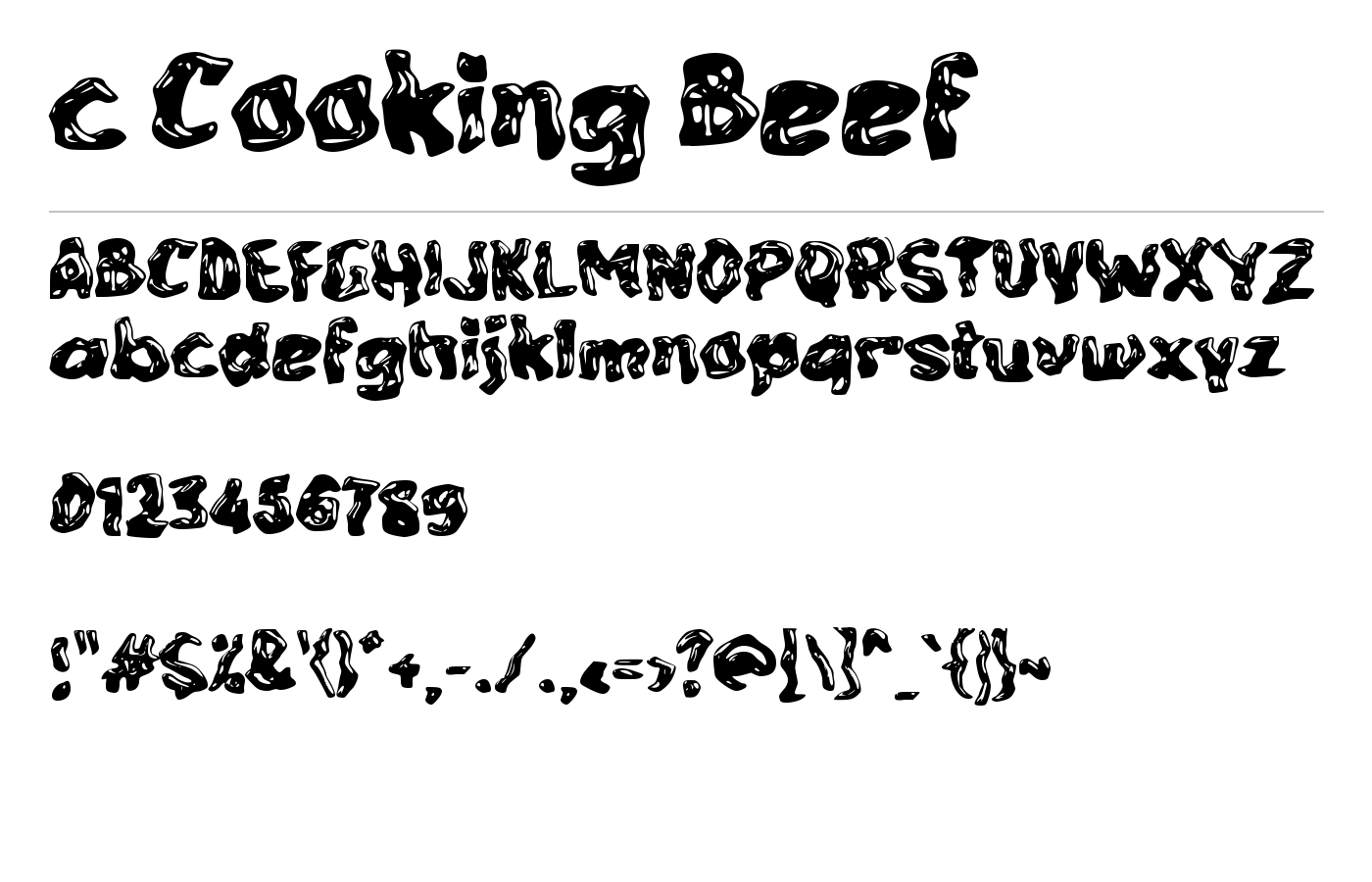
Cooking Beef is a bold, playful display font with an irregular, textured style that mimics the look of dripping or melting beef. Its heavy weight and quirky letterforms give it a casual, fun vibe perfect for food-related branding, posters, and packaging where a lively and unique personality is desired. This font works best in large sizes to showcase its distinctive, hand-drawn character that grabs attention with its organic, imperfect charm.
c Cooking Beef Font
About c Cooking Beef Font